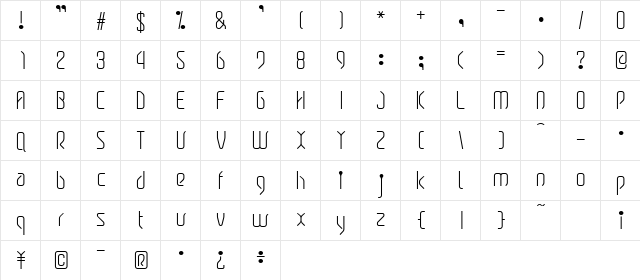
Skinny AL
Design Context for Skinny Typeface
Skinny offers clean, dependable letterforms without strong stylistic allegiance, making it a practical choice for designers who need flexibility.
Pro Tip: Pair Skinny with a font of contrasting weight or personality to build a more expressive typographic hierarchy.